This time we have prepared insane racing fonts for your pretty cool designs that are worthy of your attention. These fonts can be used in a wide range of designs, such as posters, covers, titles, packaging and so on.
All these racing fonts were created by professional designers and are of the best quality, whether they are free or premium fonts. Don’t waste your time and choose the best fonts listed below, which will bring life to your design. Keep a good mood and enjoy.
Swipe Race
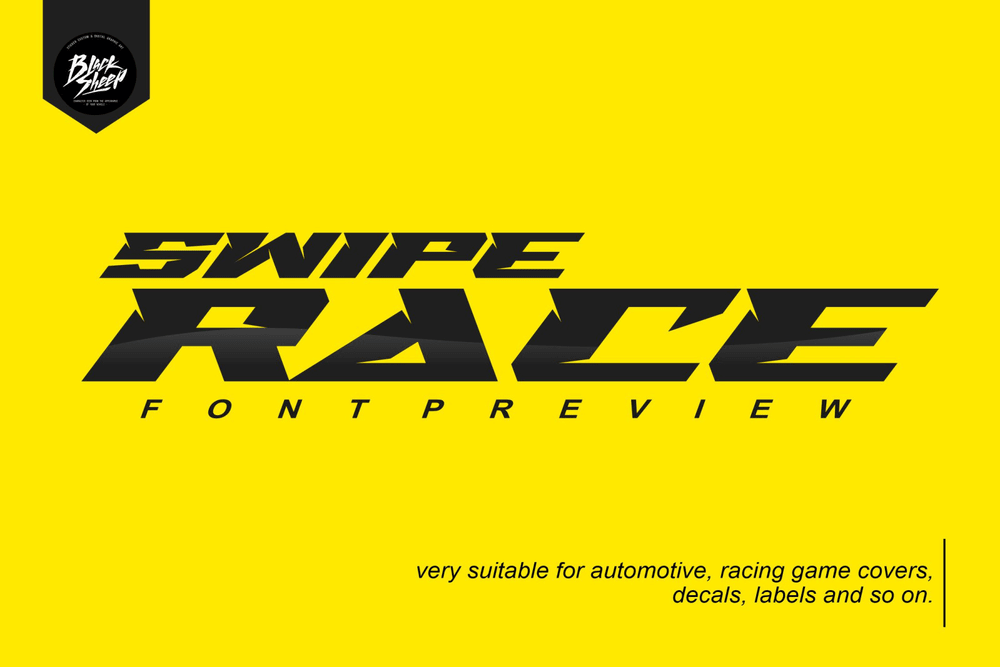
The font consists of a racing style with sharp lines with a verified tilt angle that will emphasize a modern and sporty style. Ideal for automotive magazine covers, racing game covers, logos and branding, product designs etc.
Accelerare
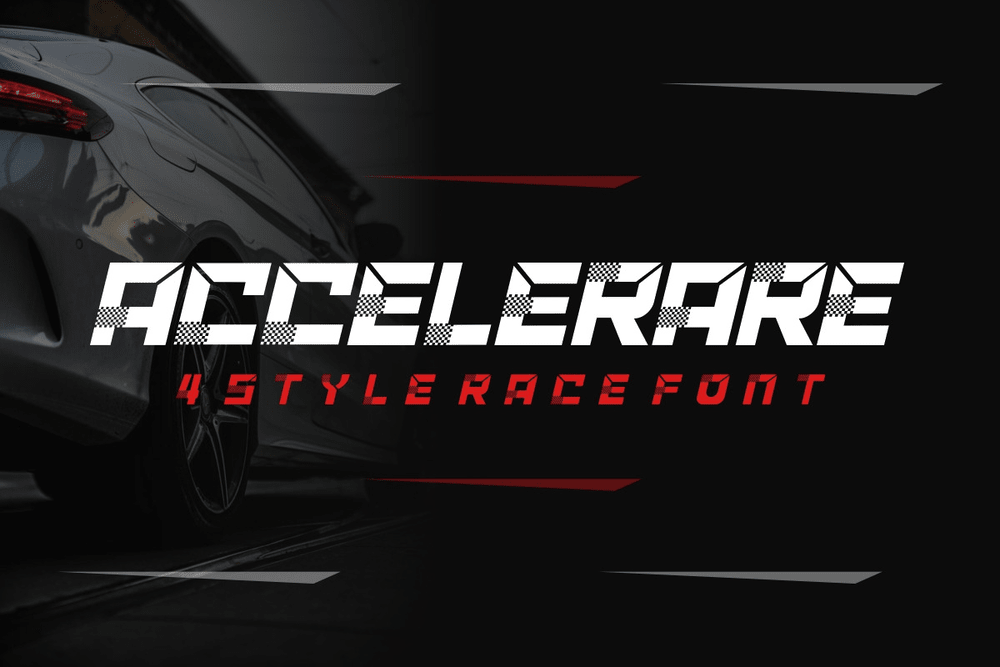
A sans serif display font that so good going for your racing designs such as magazine covers, posters, flyers and etc.
Rock Road
It is a racing theme font with sharp and consistent angles combined with a hard and strong style. Perfect for Logos, titles, logotypes, covers, headlines, apparel, comic and etc.
MXSQUAD
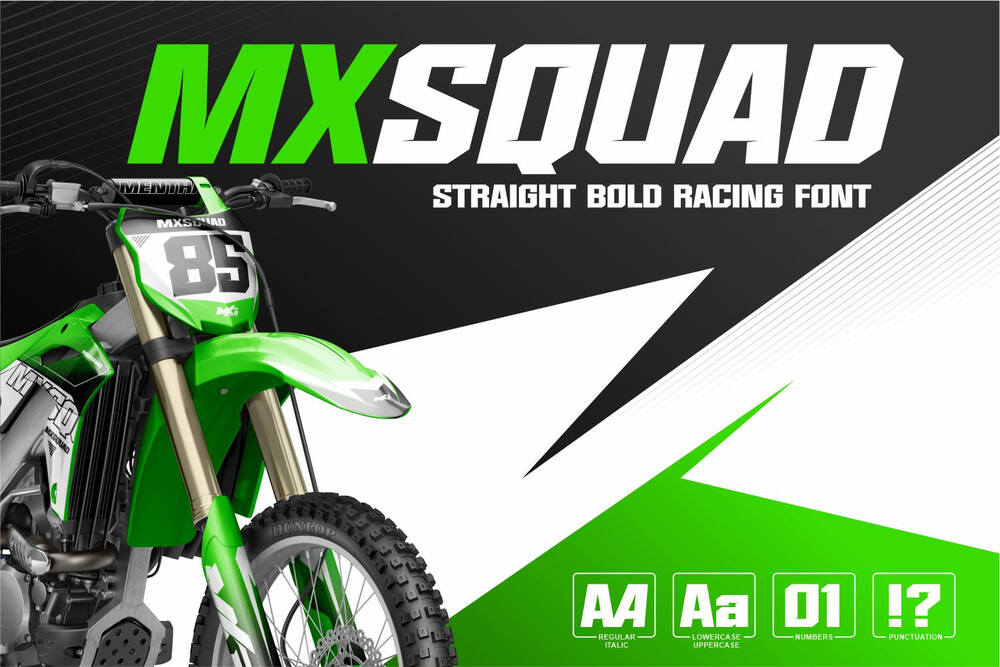
It is a strong and sporty serif typeface to make your titles and racing numbers look more dashing. Super good for jersey designs, basketball, logos, automotive brands, games and etc.
Slugs Racer
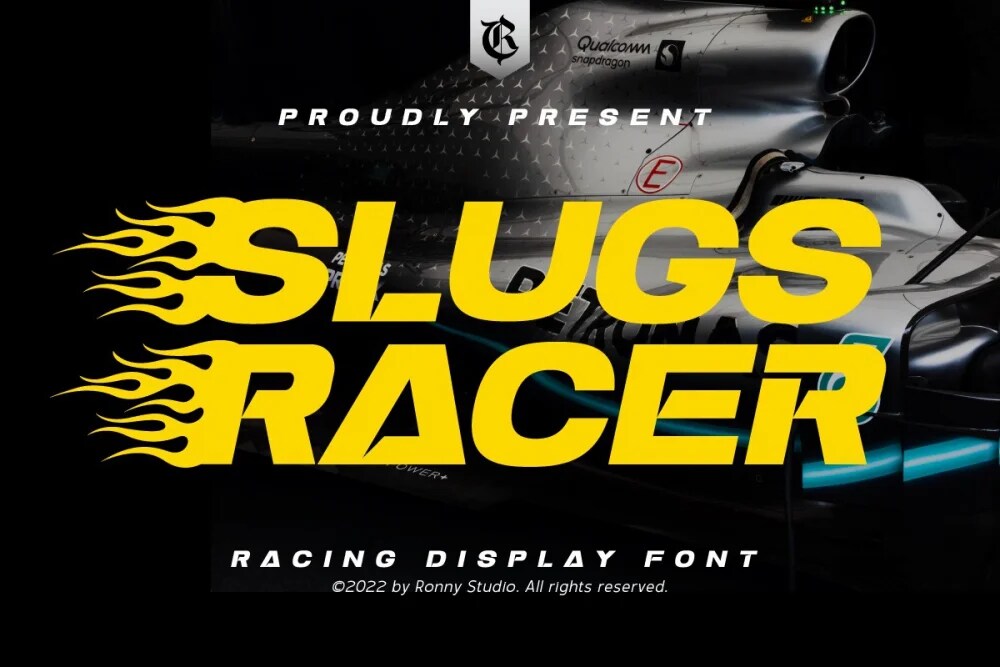
It is an all caps racing display font that has a very thick body, but maintains high contrast. Ideal for elegant logos, branding, promotions, book covers, magazine layouts and etc.
Trobus
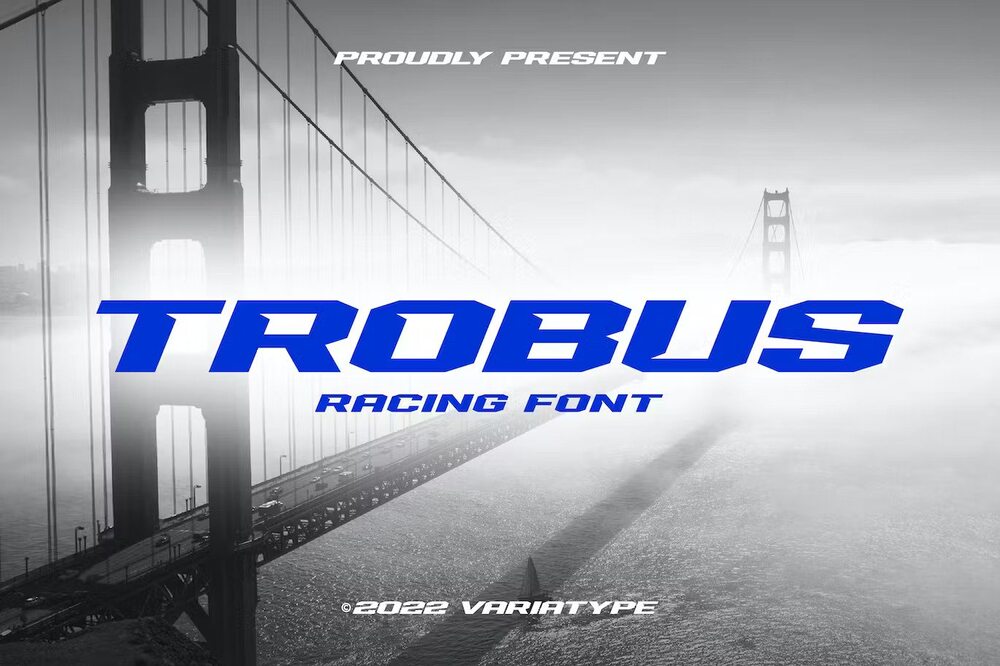
It is inspired by automotive and speed so good suited to your branding or logotypes and more design projects flexible to any brand name.
Torque
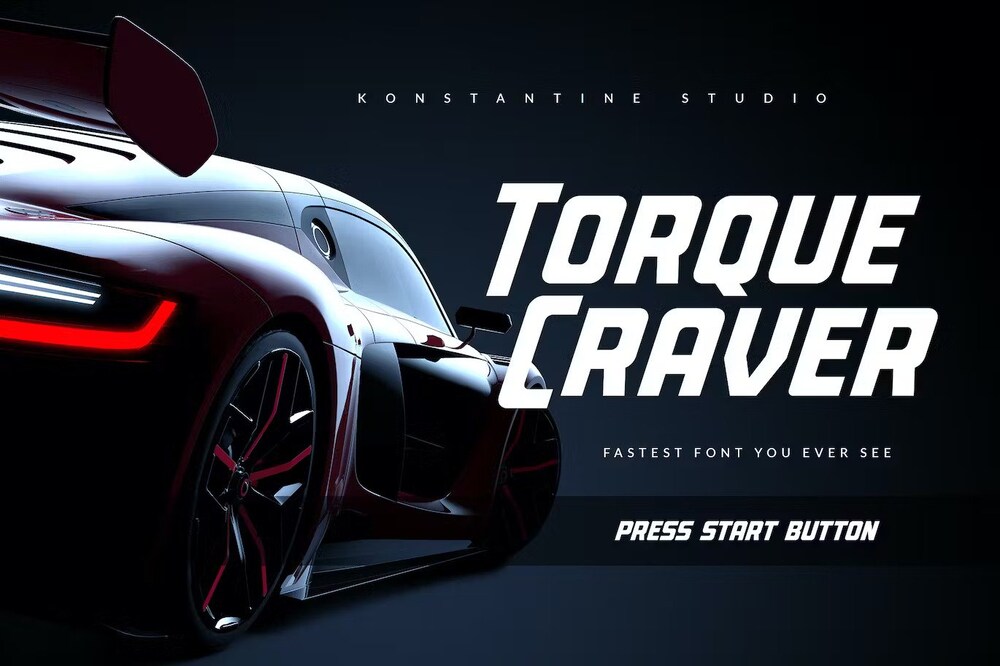
Inspired from the fast car branding and futuristic digital concept, aiming the fast moving forward mindset with bold form to make the statement louder and faster than ever. Ideal for racing sports designs.
Road Race
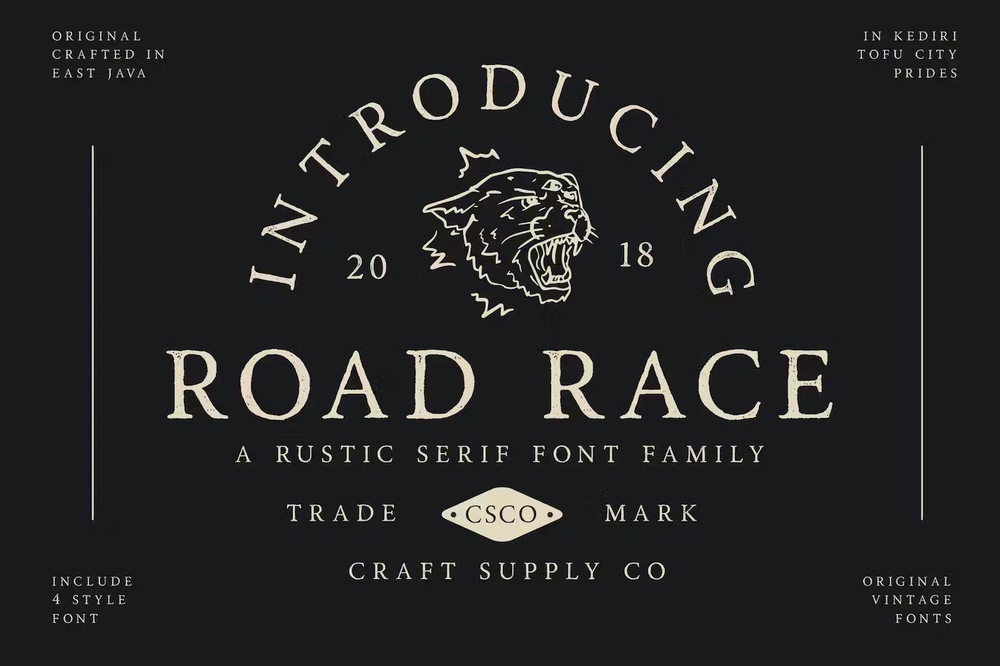
A font family with 4 different style so good going for greeting cards or a package designs, or even a brand identity it’s up to you.
Racing Hard
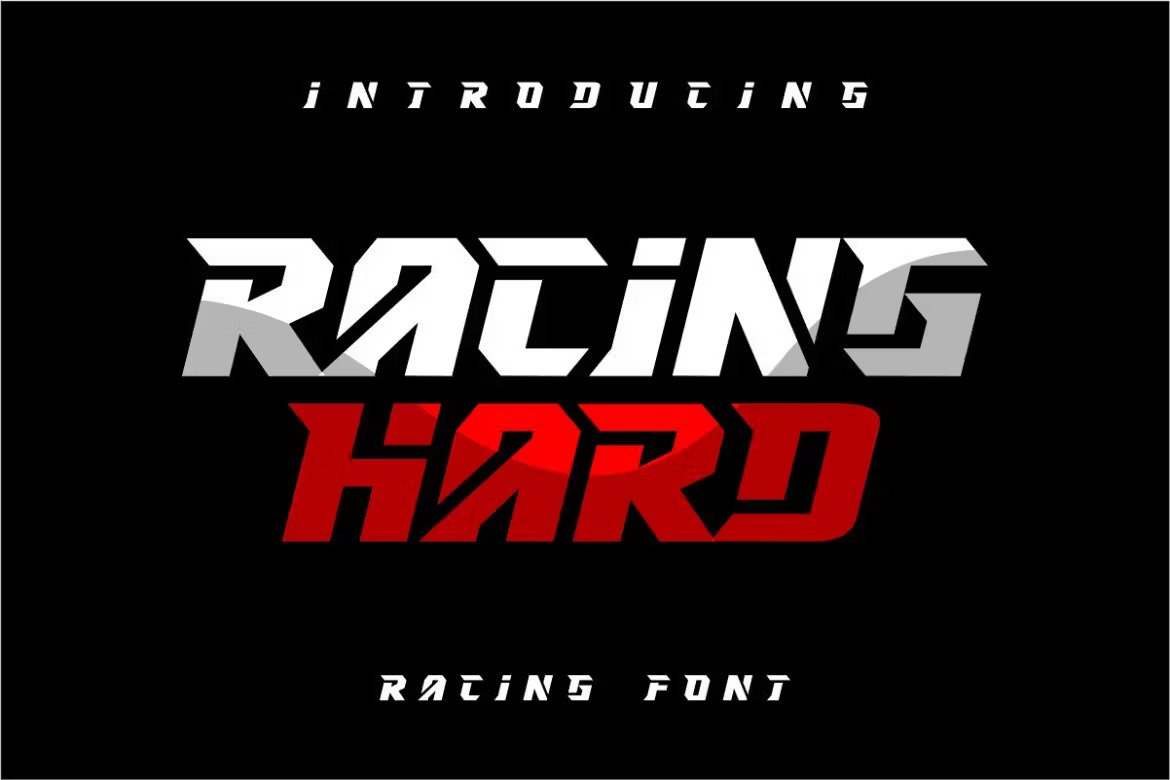
A modern and all caps font for your speedy designs such as posters, covers, titles, packaging, logos and etc.
Quickstarter
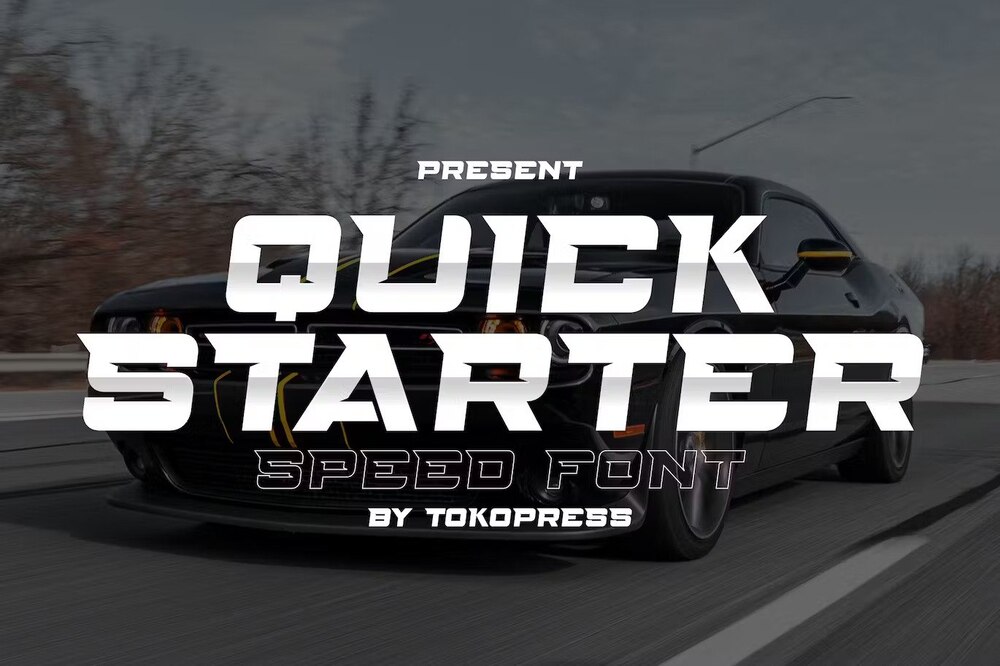
This font is powerful, strong sharp corner, and a solid shape for uppercase, and lineart version for the lowercase. Ideal for racing theme online games, posters, movie titles, fast food menu and etc.
Free Race Sport Font
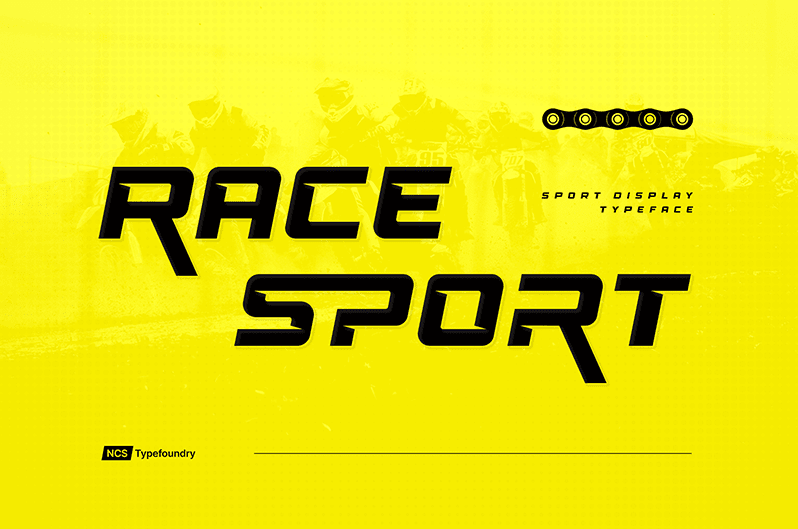
A modern and futursitic racing sport font for designs such as posters, covers, titles, promotions, banners and etc.
Free Racing Font
It is a modern ultra racing sport font that created special for branding, titles and more stand out typography for sport and action.
Free High Speed Font
It is a free pretty cool, bold, robotic display font. Ideal for writing web designs, business cards, or pretty much anything else that requires a unique touch.
Fasten
It is a race theme display font with a stylish touch inspired by the famous minimalist logo. Ideal for logos, printed quotes, invitations, cards, product packaging, headers and etc.
Race Freak
It is powerful racing theme font, that ready to be used for your racing sports or automotive-related projects.
Refault
Sans serif display font is perfect for your up coming projects, such as logo branding, editorial designs, esport designs, 80s retro designs, gaming and etc.
Maszeh
It is a firm font to escalate your design level higher. In line with the racing theme, this font creates brave strong impressions on your designs.
Speed of Race
It is inspired by the sporty racing display font. This bold and strong font with an impression of speed is perfect for making sports racing themed designs.
Power Torque
It is a unique racing and sport type font which are so good going for gaming, automotive, street themes, hypebeast, posters and etc.
Nextrue
It is a sans serif font family with a sleek and sporty look. Ideal for sport designs, branding, poster displays, logo designs and etc.
Sonic Turbo
It is powerful racing theme font, ready to be used for your racing sports or automotive-related projects.
Stormlight